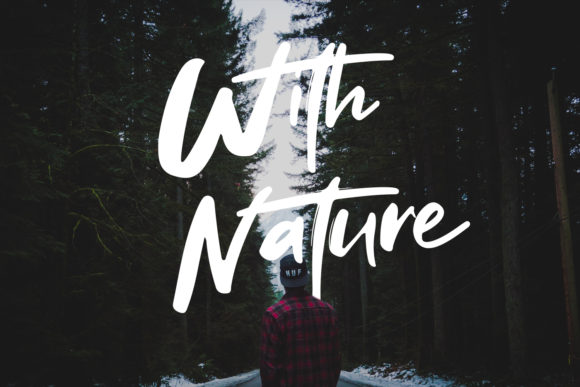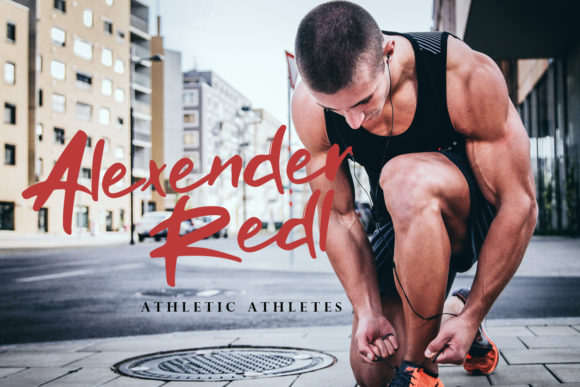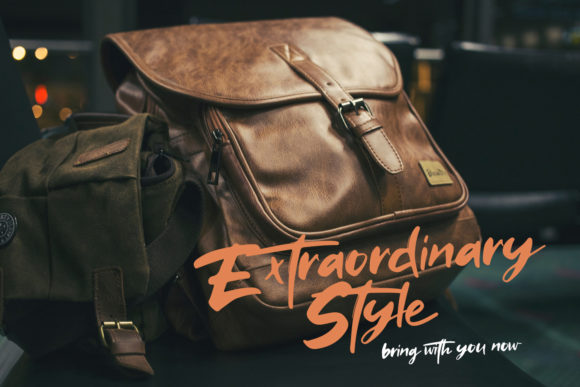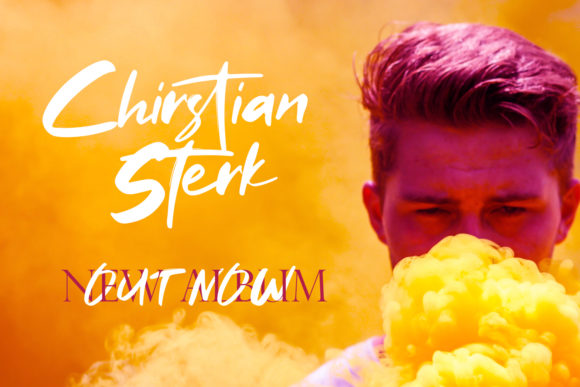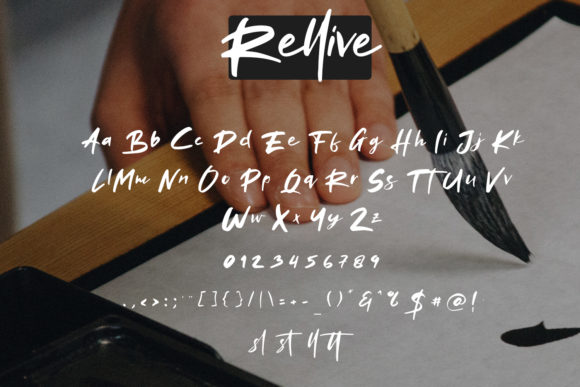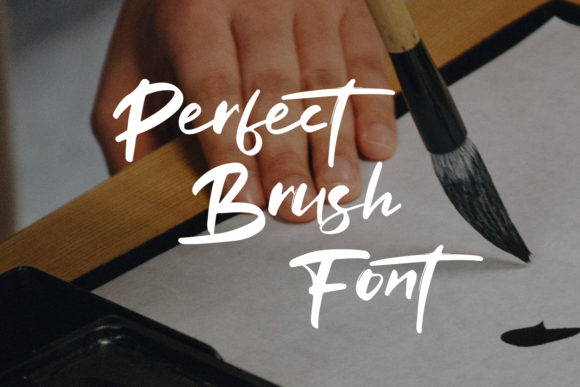
Introduction to Rellive Font
Rellive is a cool and sharp script with a distinct look.
Use it to add an adventurous feel to any design .
Key Features of Rellive Font